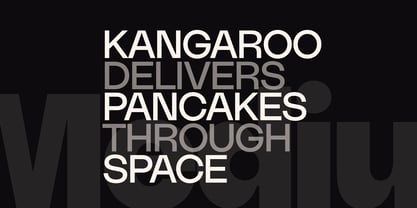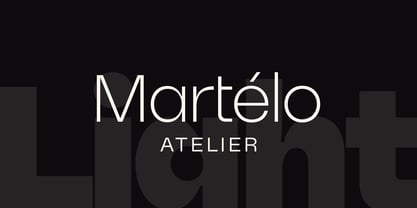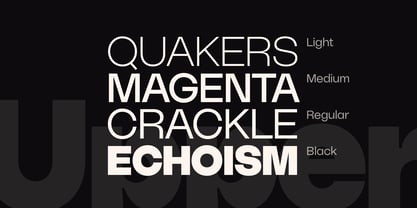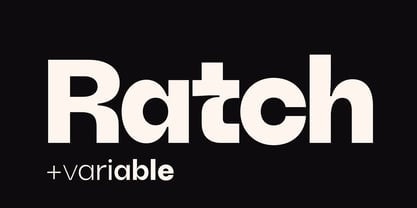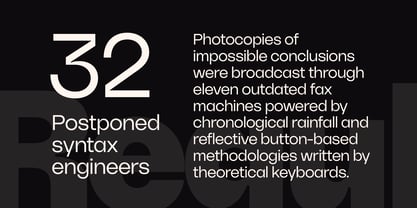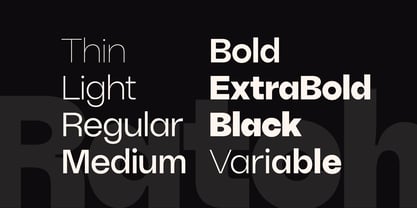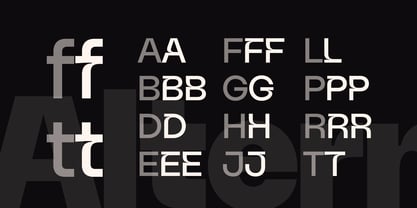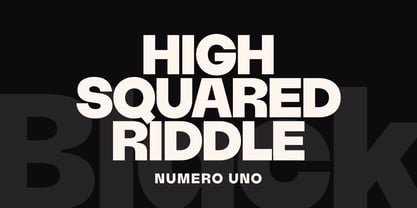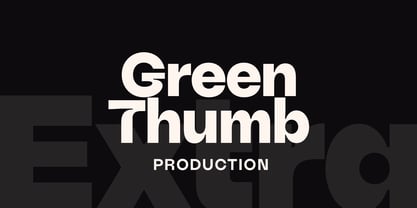
Ratch
by Roman Melikhov
The Ratch Font Family was designed by Roman Melikhov and published by Roman Melikhov. Ratch contains 8 styles and family package options.
Ratch is a modern geometric grotesk typeface family featuring 7 weights from Thin to Black, along with a fully functional variable font. Each style includes a set of stylistic alternates designed to highlight and personalize individual letters within your text.
About Roman Melikhov
Roman Melikhov, a type designer with vast experience in logo creation, channels the insights gained from his logo work into his font designs. His process involves unexpected creative solutions and offbeat methodologies. He prioritizes originality and identity, enabling him to infuse even minimalist typefaces with unparalleled uniqueness. Meticulous attention to detail during font production ensures the utmost accuracy in the final outcome.